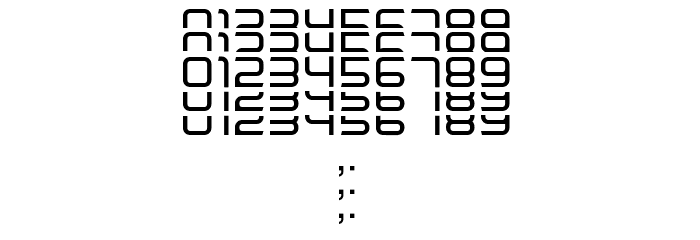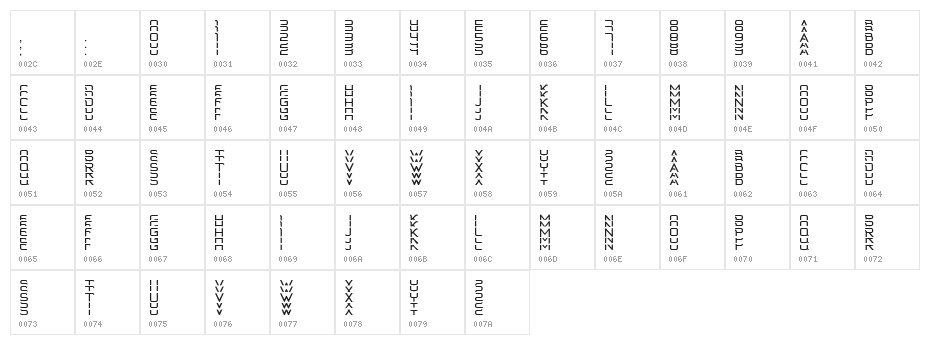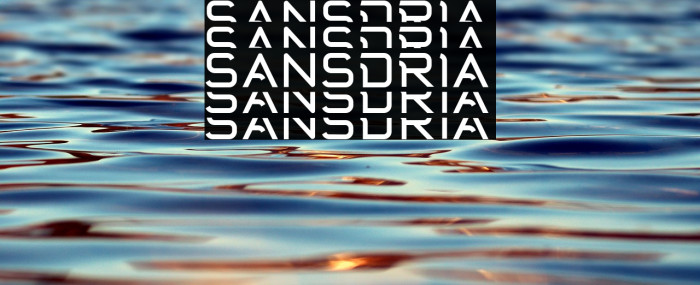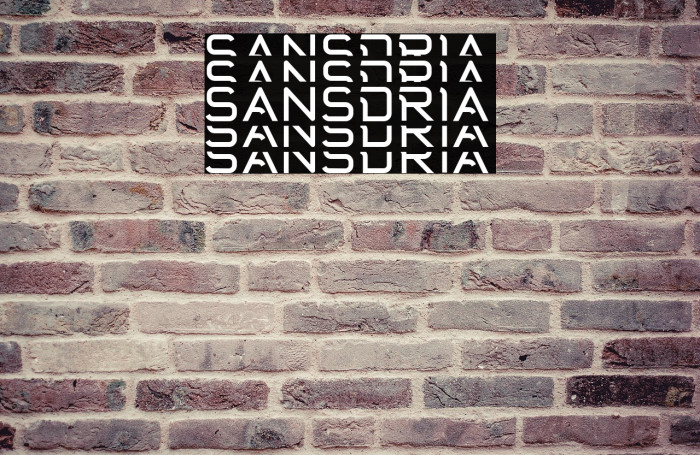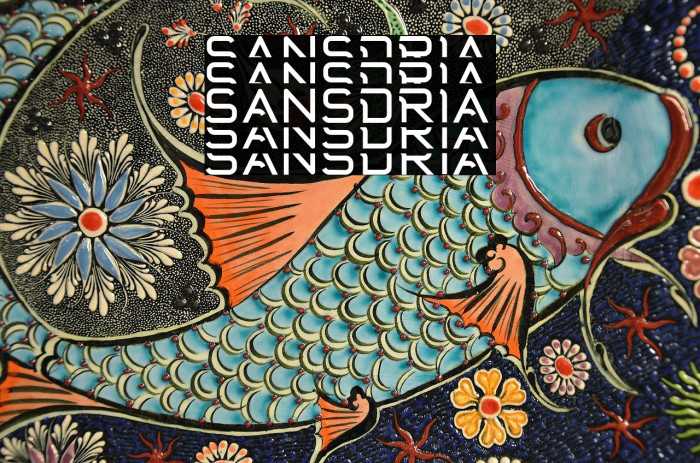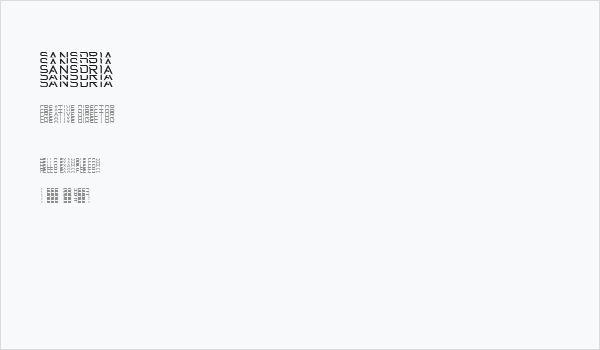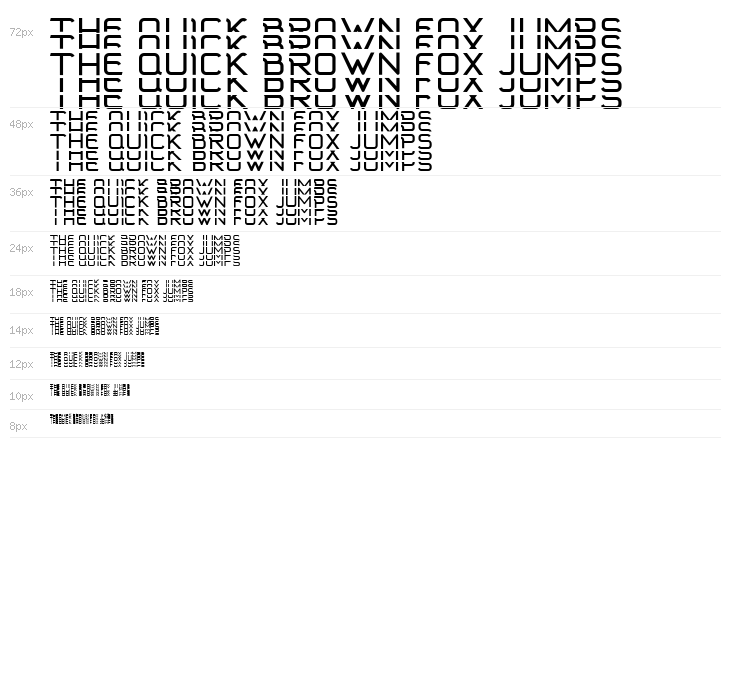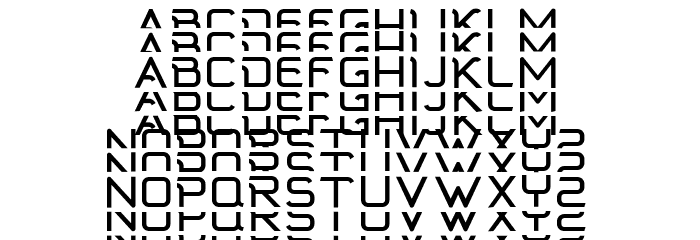
Sansdria Font
Sansdria Description
This font features a modern and geometric design with a distinct futuristic feel. The characters are constructed with clean, straight lines and rounded edges, creating a harmonious blend of sharpness and softness. The uppercase letters are uniform in height, while the lowercase letters maintain a consistent style, enhancing readability. The numerals are equally balanced, mirroring the style of the alphabet. Special characters are designed to match the overall aesthetic, ensuring a cohesive look. The font's structure is well-suited for digital and print media, offering versatility across various applications.
| Proposed Projects | Ideal for technology branding, digital interfaces, modern advertising, and innovative product packaging. |